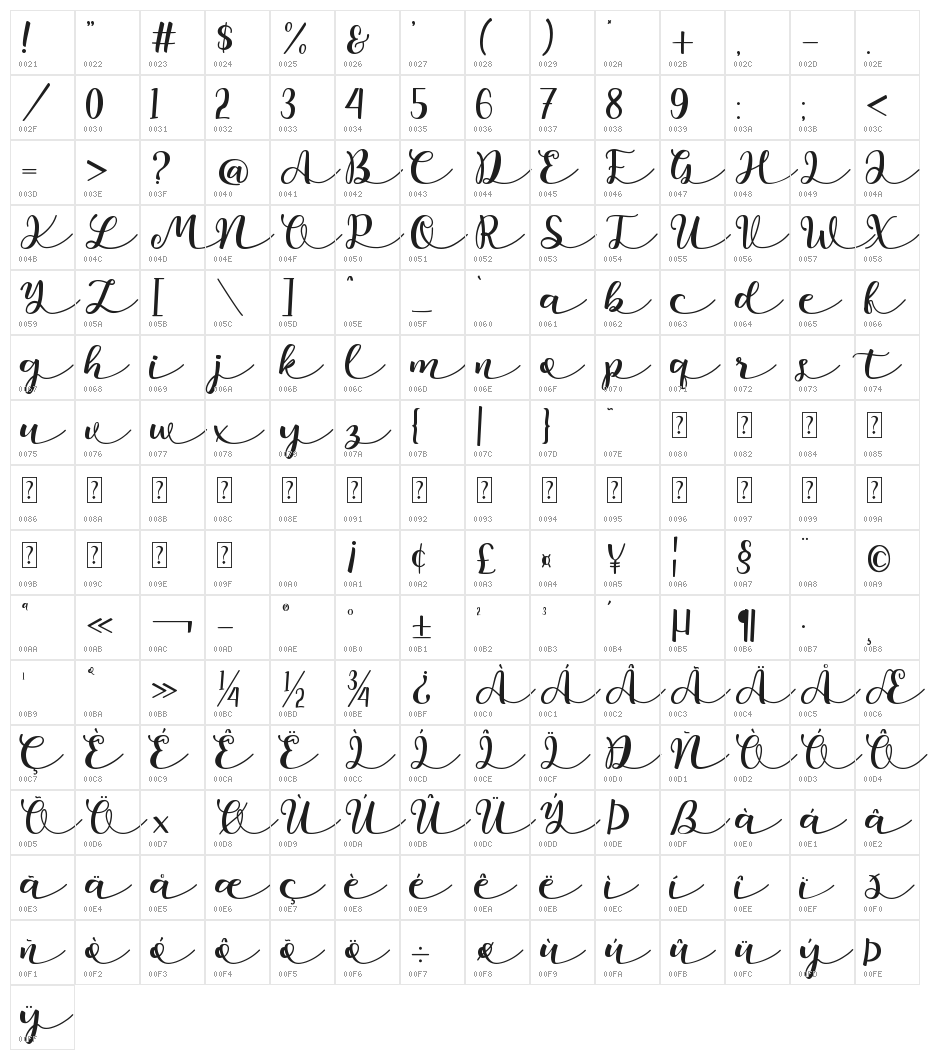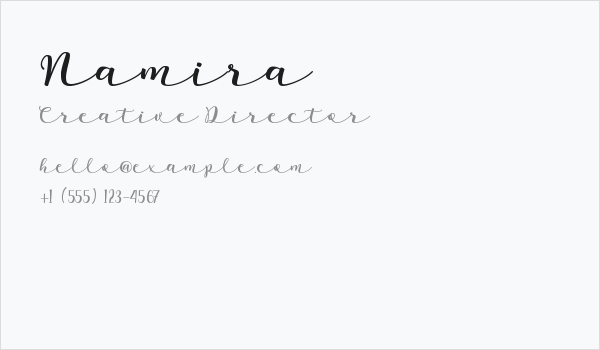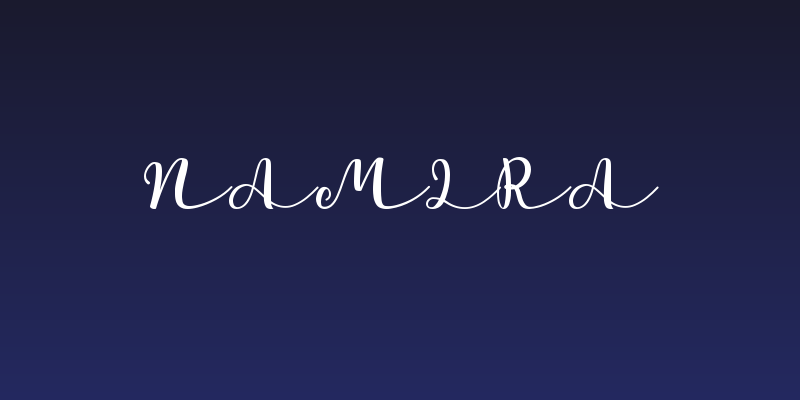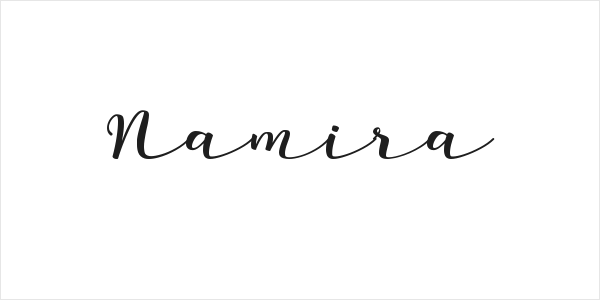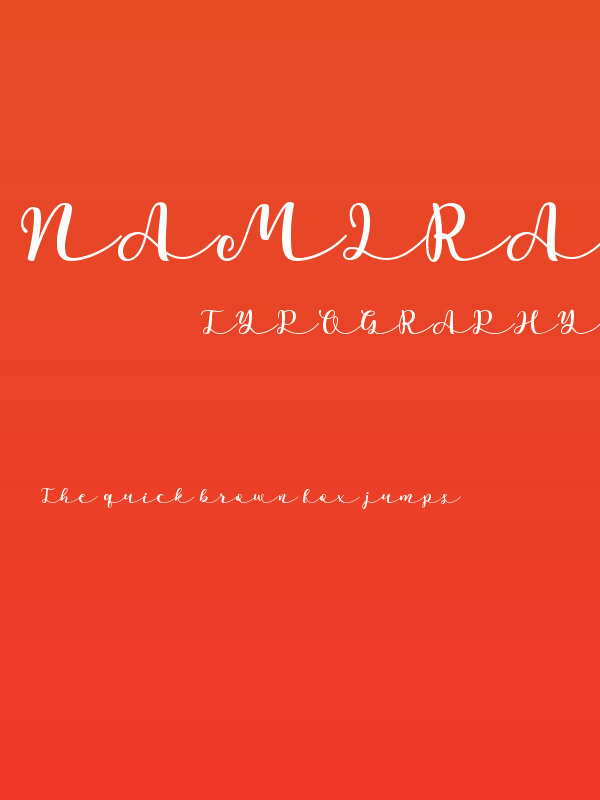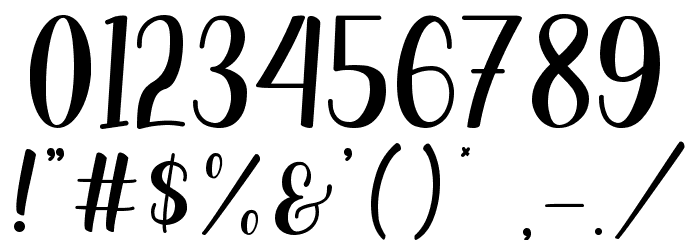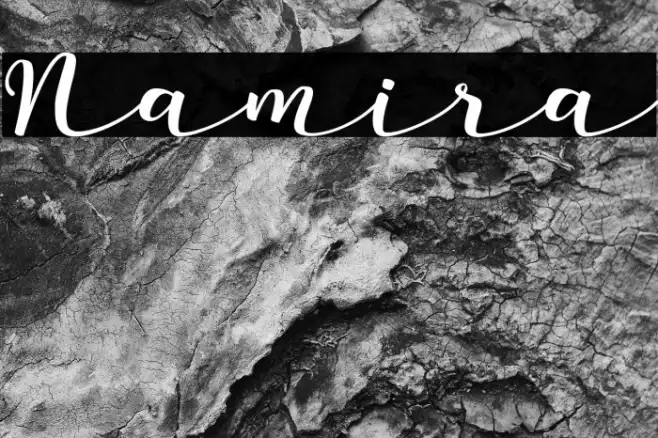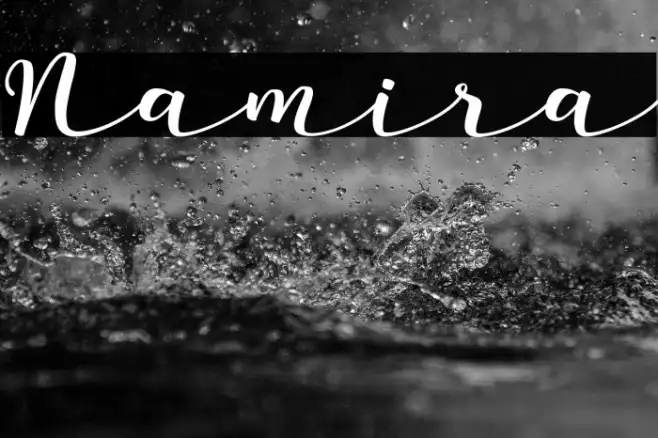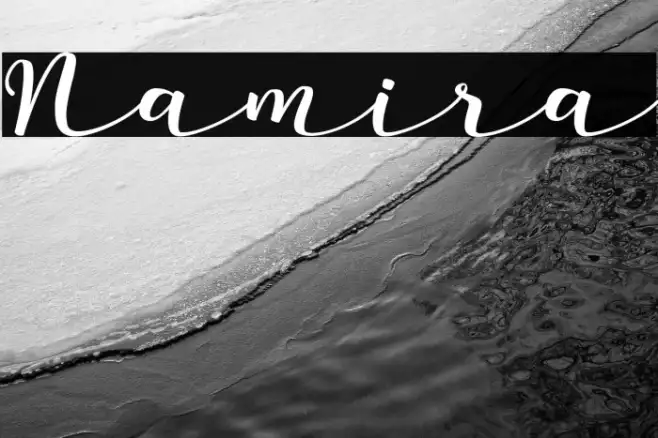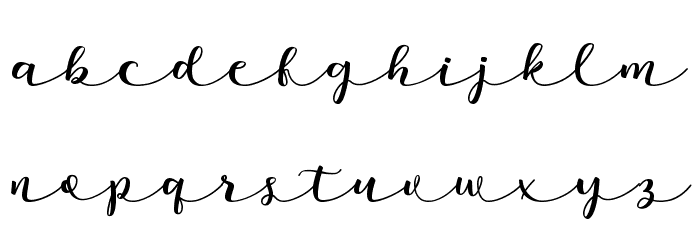
Namira Font
Namira Description
This elegant script font features flowing, connected letters that evoke a sense of grace and sophistication. The uppercase letters are characterized by their sweeping curves and loops, while the lowercase letters maintain a consistent, smooth flow. The numerals are bold and slightly condensed, providing a striking contrast to the delicate script. Special characters are crafted with the same attention to detail, ensuring a cohesive look across all glyphs. This font is perfect for projects that require a touch of elegance and style, such as wedding invitations, branding, and high-end product packaging.
| Proposed Projects | Ideal for wedding invitations, luxury branding, and elegant product packaging. |